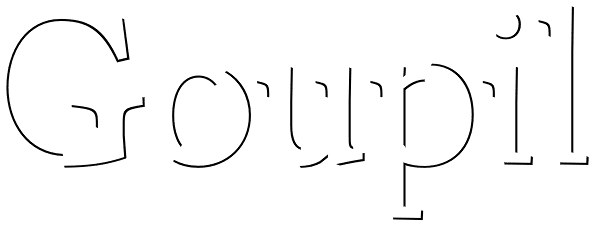
Goupil
Goupil is based on baroque proportions letters. But, it can only be read through its thin shadows. So, Goupil is a light face, for refined and aerial titles. Titling face does not necessary mean poorly furnished character: Goupil also has small...